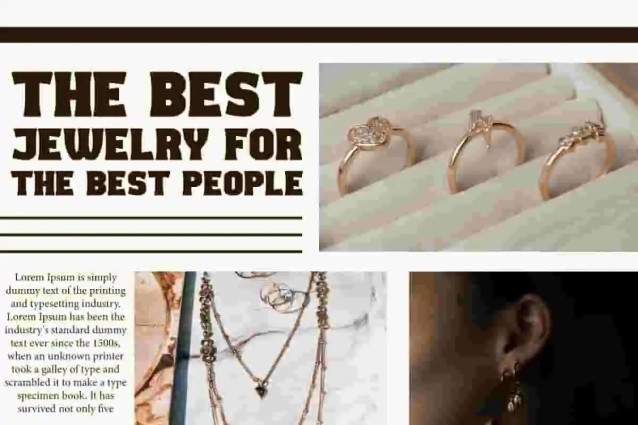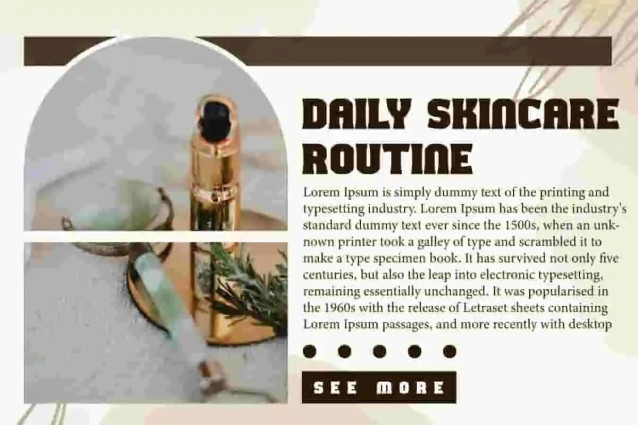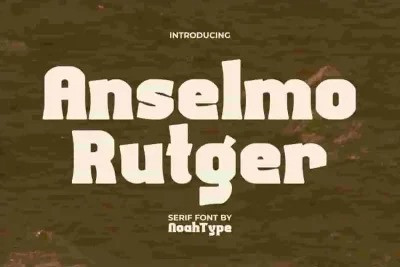
Anselmo Rutger Font
Anselmo Rutger Font is a classic serif display font by NoahType. This font has a medium weight which makes it look bold and chic on design. It will be good for any designs, such as stationery, brand image, invitation, custom design, label, marketing material, menu, poster, product packaging, quotes, signage, web and many more!
Anselmo Rutger Font includes a complete set of Uppercase and Lowercase Basic Characters, Numerals, Punctuation and Symbol. This font will give unique look and also a perfect choice for many industries, such as beauty product, event or wedding organizer, accessories, advertising, fashion, movie, photography, printing, publishing, spa and salon, travel, etc.